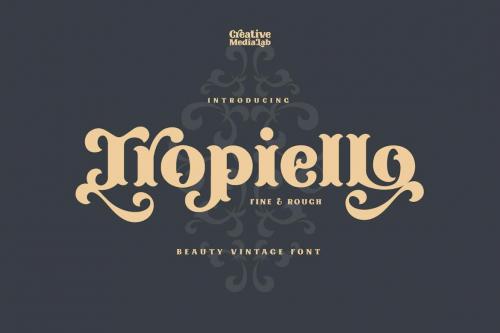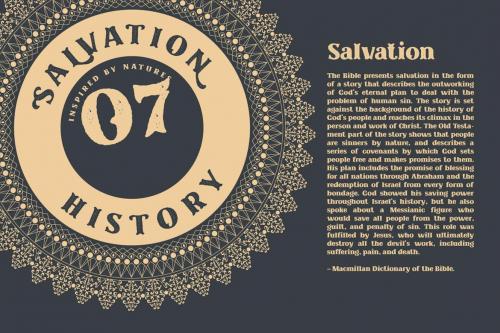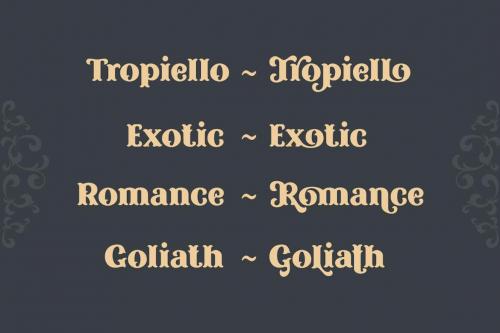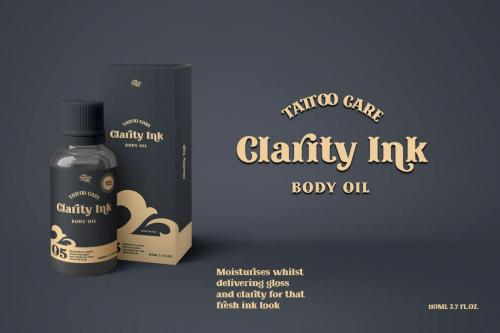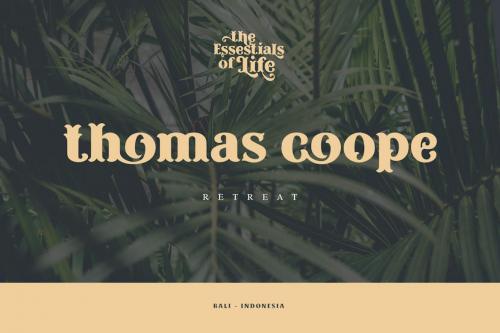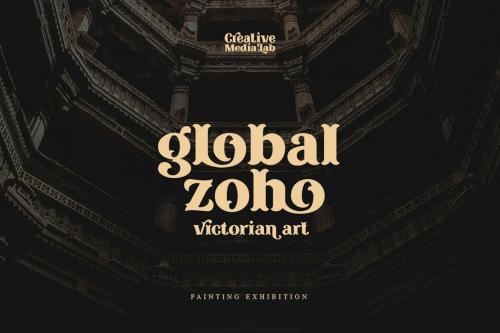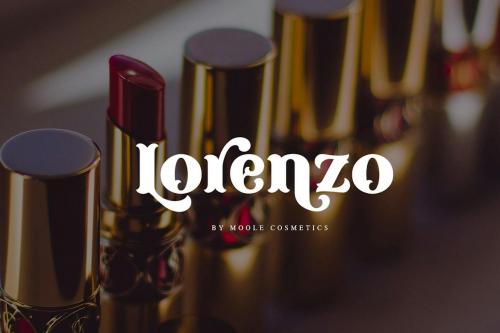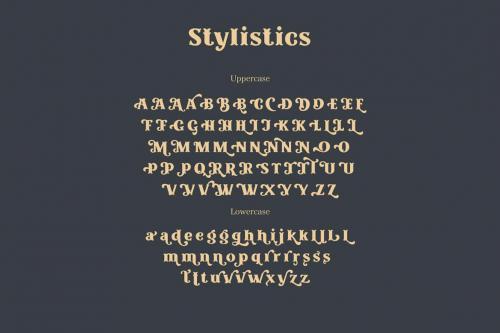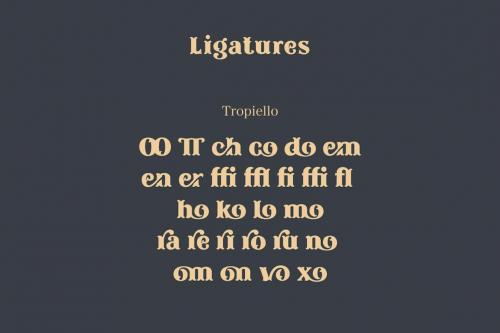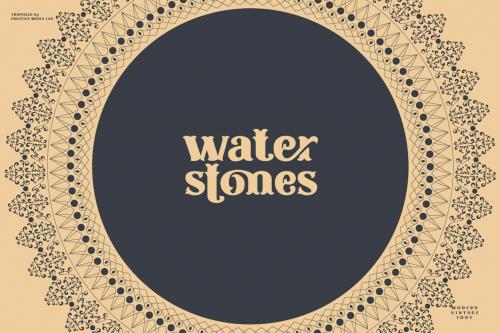
托皮洛字体
Tropiello Font
**Tropiello - Modern Vintage Beauty Font** A beauty vintage font comes with fine and rough style with tons of stylistic alternates and ligatures that will give a unique and modern look on your design projects, or use it as a display face on a poster, or logo, menu, clothing brand, fashion brand title, tattoo lettering, Christmas greetings and much more.
**Tropiello - Modern Vintage Beauty Font**
A beauty vintage font comes with fine and rough style with tons of stylistic alternates and ligatures that will give a unique and modern look on your design projects, or use it as a display face on a poster, or logo, menu, clothing brand, fashion brand title, tattoo lettering, Christmas greetings and much more.